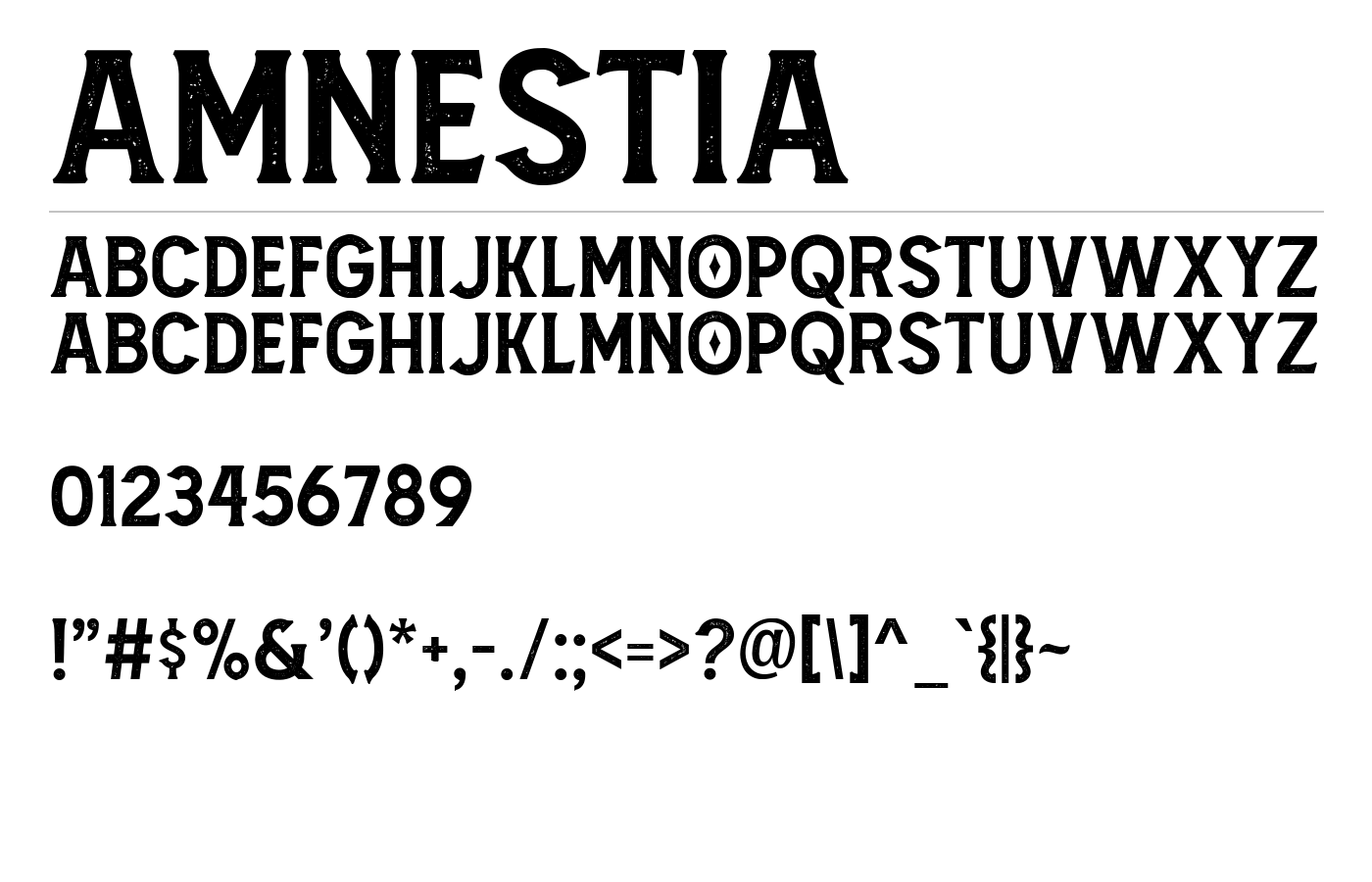
Amnestia is a bold serif font with a vintage and slightly distressed texture that gives it an authentic, handcrafted feel. Its strong, slightly condensed letterforms with moderate contrast and distinctive decorative details make it ideal for projects needing a rugged yet classic character, such as branding, posters, and editorial headlines. This font brings a sense of nostalgia and strength, making it perfect for conveying timeless, adventurous, or retro-inspired themes.
Amnestia Font
About Amnestia Font